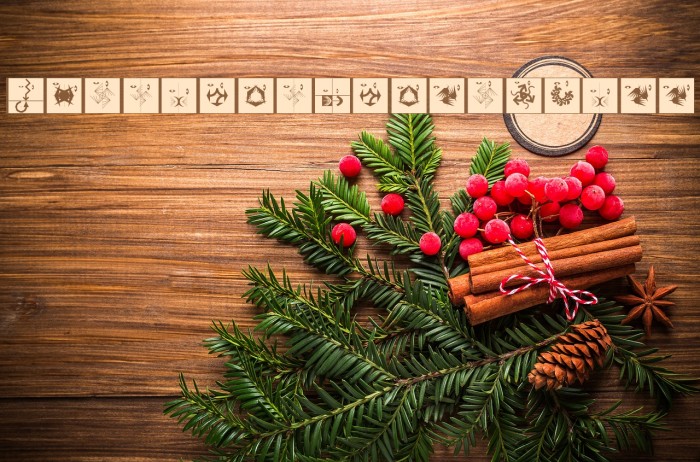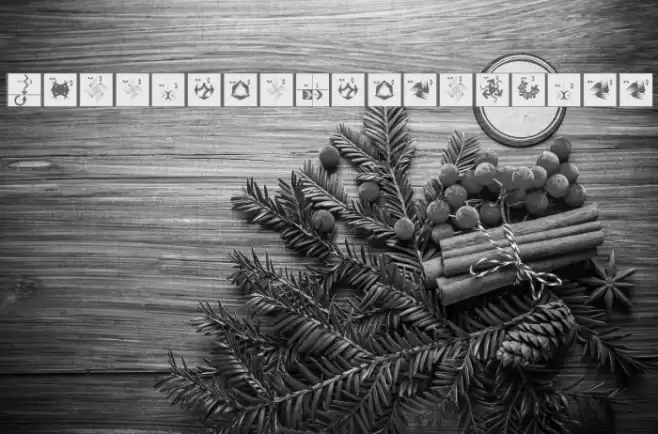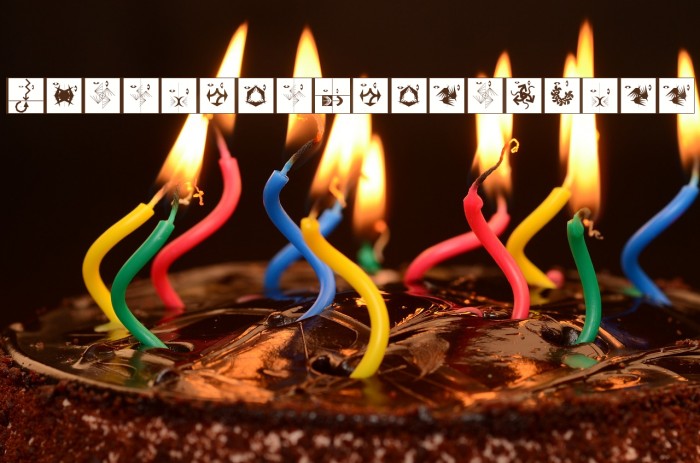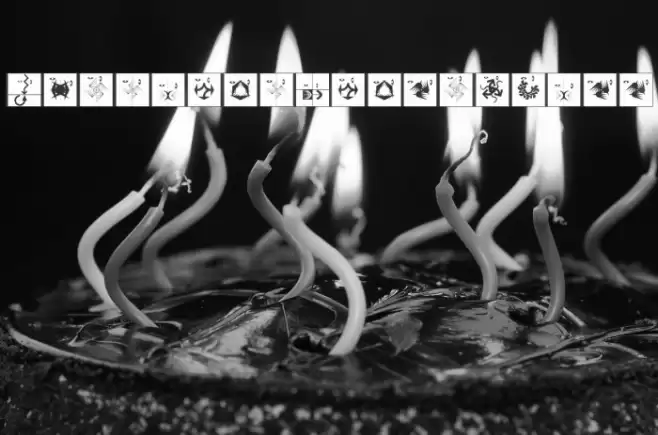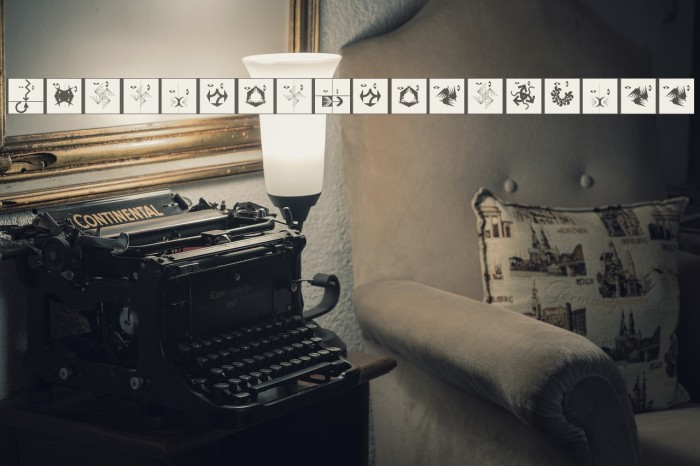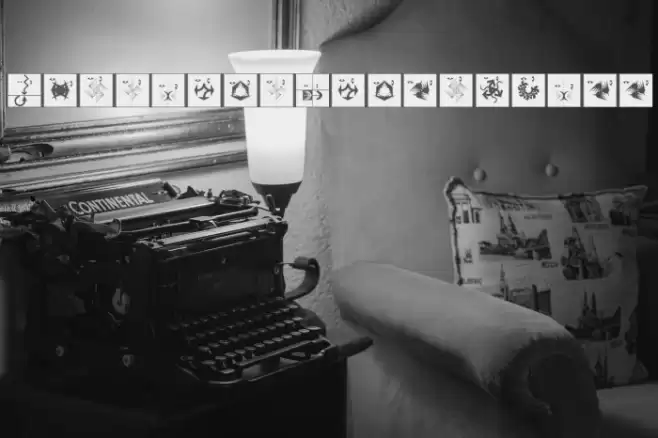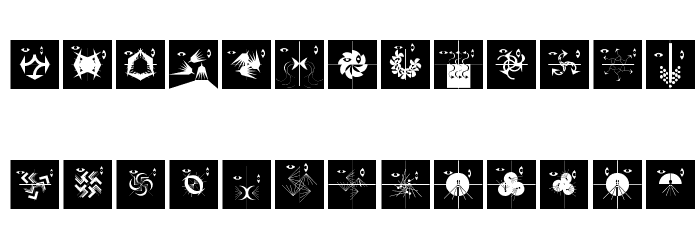
AbstractFacesThree Font
AbstractFacesThree Description
This collection features a series of abstract, artistic symbols that resemble faces, each with unique and intricate designs. The characters are highly decorative, with a playful and imaginative style that combines geometric shapes and organic forms. The symbols are crafted in a monochromatic scheme, emphasizing their bold and striking appearance. Each character is distinct, offering a variety of expressions and motifs that evoke a sense of whimsy and creativity. The overall design is cohesive, yet each symbol stands out with its own personality, making it suitable for artistic and creative projects.
| Use Case | Logos, Artistic prints, Creative media |
| Proposed Projects | Ideal for use in graphic design projects, branding, artistic prints, and creative digital media. |